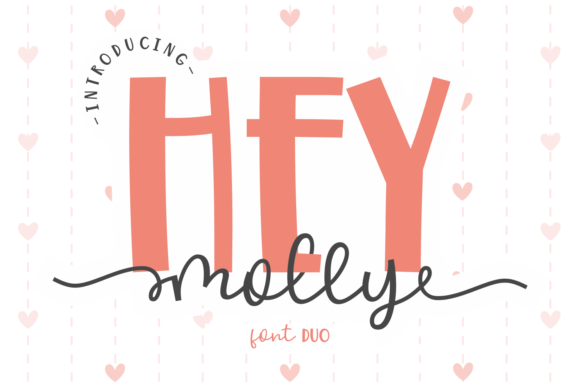
Introduce the Hey Molly Font: A Romantic Dance of Script and Sans Serif
Welcome to the world of Hey Molly, a captivating calligraphy typeface that intertwines script and sans serif with undeniable charm. Designed by Dani of 7NTypes, this duo font is an exquisite ballet of characters dancing along the baseline, ready to infuse your designs with a touch of luxury and elegance.
With its romantic and sweet nature, Hey Molly effortlessly adds a spark to any creative project, whether it's a captivating blog header, a heartfelt wedding invitation, or an enchanting social media post. Its carefully crafted glyphs and ligatures, effortlessly accessible with PUA encoding, offer endless possibilities for customization and creative expression.
Discover the Magic of Hey Molly:
* Enchanting Script: The script font in Hey Molly is a symphony of flowing lines and graceful curves, reminiscent of a handwritten love letter. Its delicate strokes and playful loops evoke a sense of romance, warmth, and timeless allure.
* Sans Serif Charm: The sans serif counterpart in Hey Molly is a symphony of clean lines and minimalist elegance. Its sharp edges and geometric forms provide a beautiful contrast to the script, creating a harmonious balance and visual intrigue.
* Perfect for Blog Headers: The Hey Molly font family is a match made in heaven for blog headers. Its captivating script is sure to grab your readers' attention, while the sans serif offers a touch of sophistication and readability. Together, they create a visually stunning combination that will make your blog stand out from the crowd.
Immerse Yourself in Creativity with Hey Molly:
With Hey Molly at your fingertips, the possibilities are limitless. Design enchanting wedding invitations that capture the joy and romance of your special day. Create social media posts that pop with personality and charm. Craft logos that exude elegance and professionalism. The versatility of Hey Molly makes it the perfect choice for a wide range of design projects.
Experience the Hey Molly Difference:
Choose Hey Molly and unlock a world of creativity and beauty. Let its romantic script and elegant sans serif elevate your designs to new heights. Embrace the luxury and sophistication that Hey Molly brings, and watch as your projects come to life with a touch of magic.